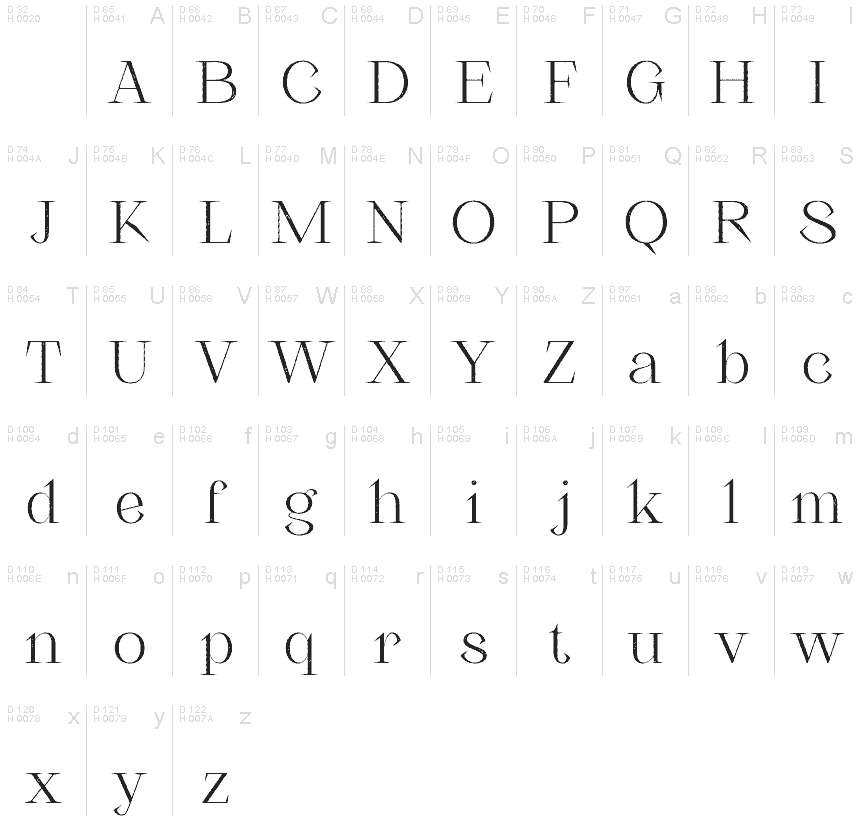
Ribka Vintage Demo Stamp
Ribka Vintage Stamp font by Craft Supply Co is a light serif font inspired by traditional stamps. It features vintage elements for a sophisticated historical feel, elegant serif terminals with ornate detailing, and perfectly decorated fonts for luxurious designs.
Use it for packaging, label design, branding projects, greeting cards headings and subheadings. Other ideas include poster design, brochure cover presentations, typography artwork invitations and more.